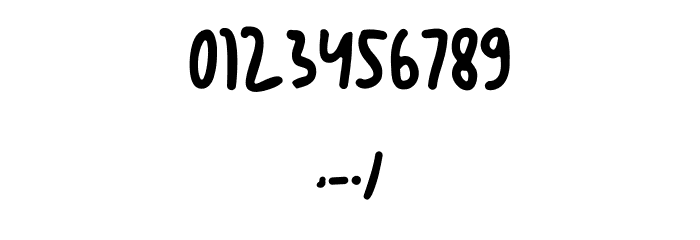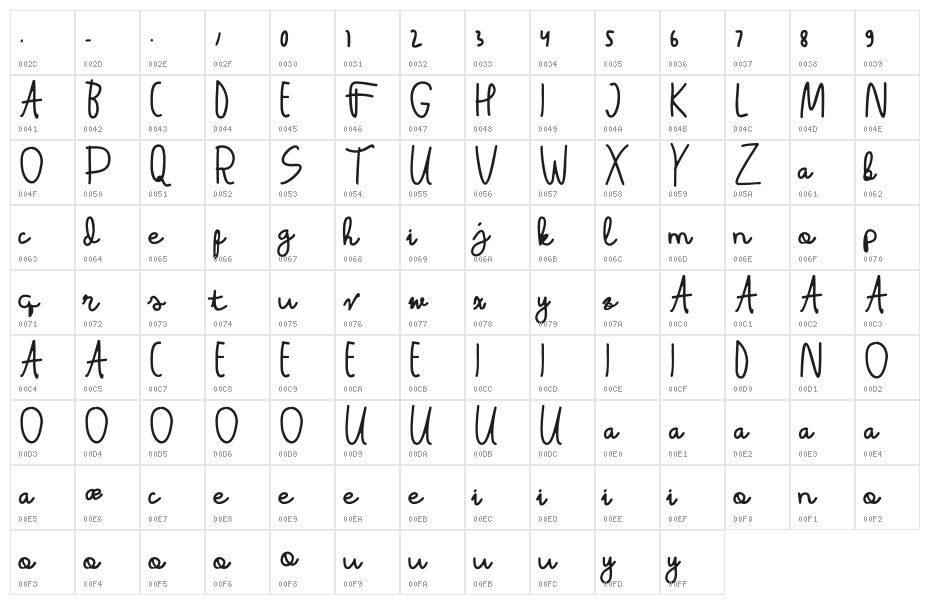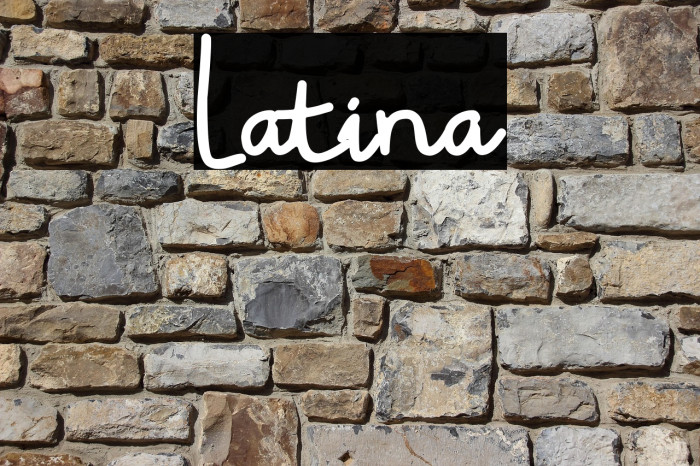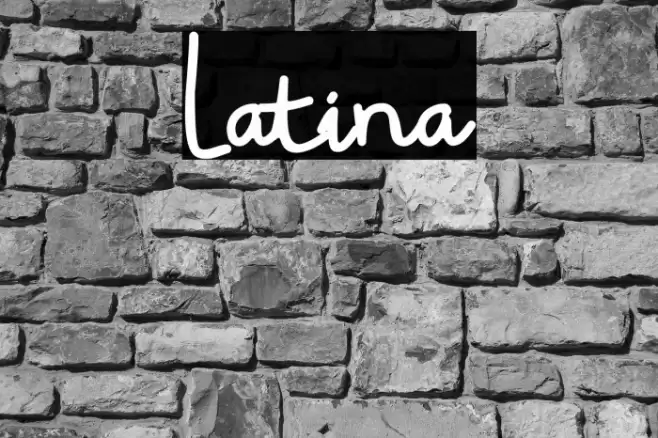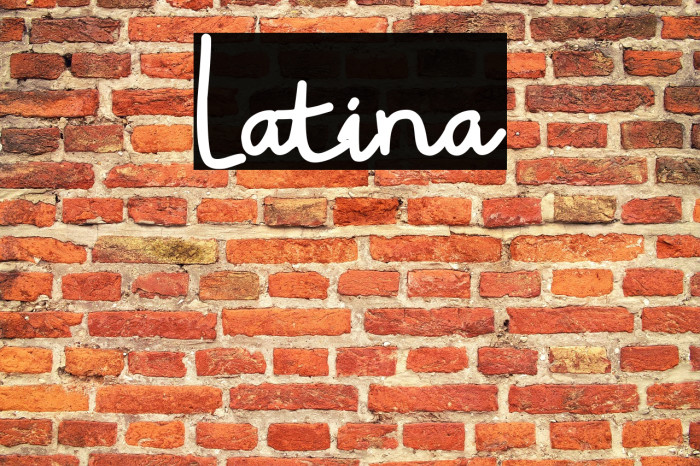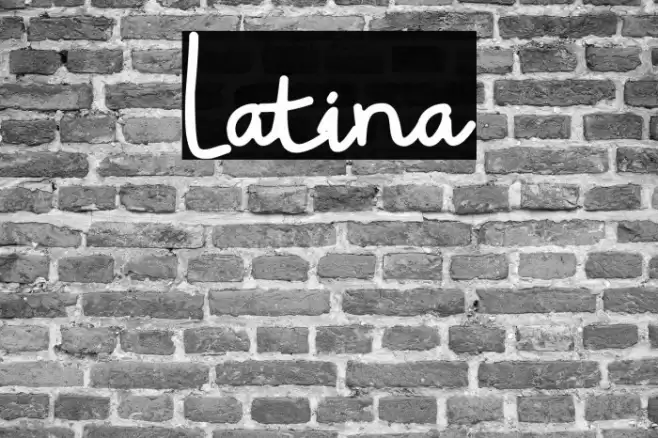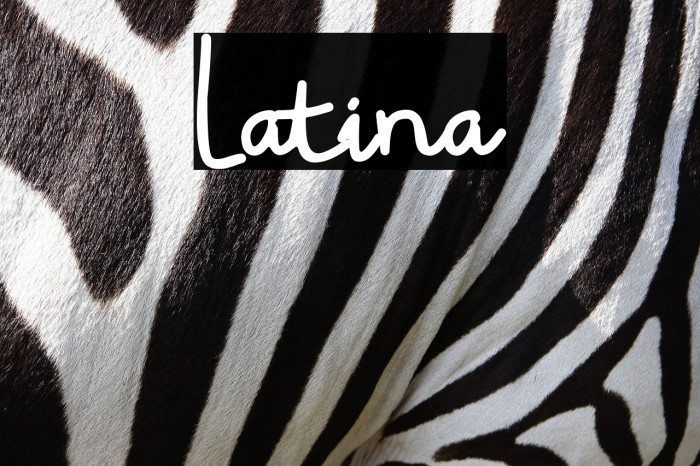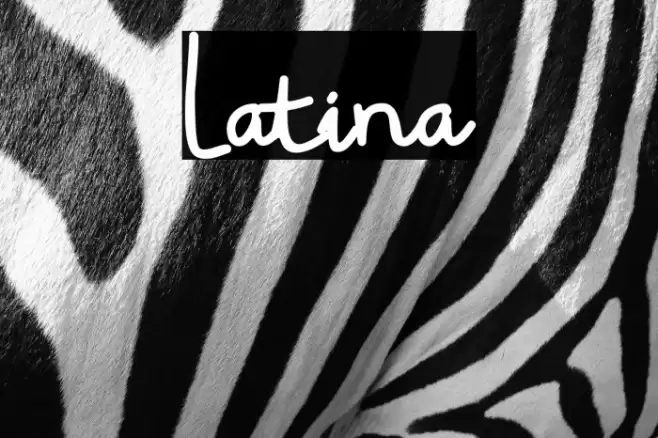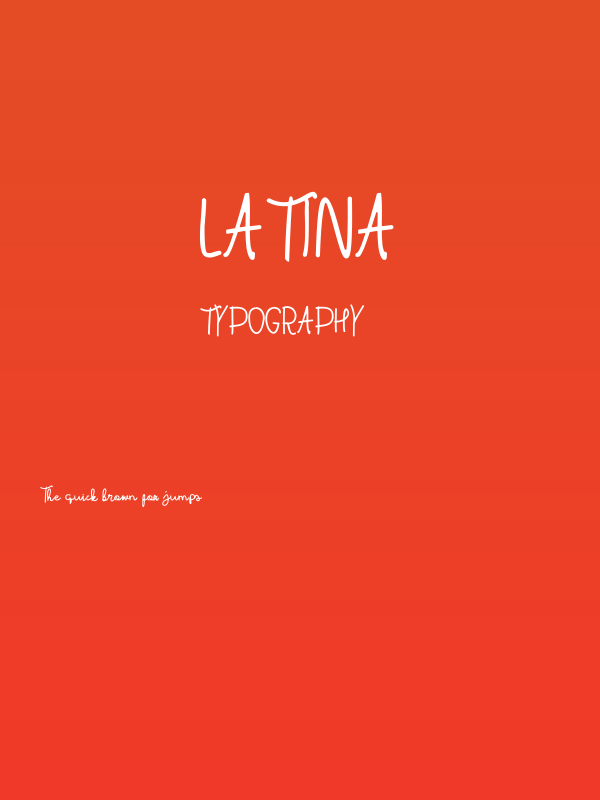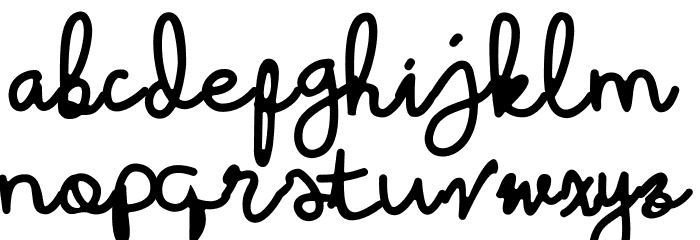
Latina Font
Latina Description
This font features a playful and casual handwritten style, characterized by its fluid and dynamic strokes. The uppercase letters are tall and narrow, with a slight slant that adds to the informal feel. The lowercase letters are more rounded and connected, resembling a natural cursive handwriting. The numbers are consistent with the overall style, maintaining the same playful and informal appearance. Special characters are integrated seamlessly, enhancing the font's versatility. The overall look is approachable and friendly, making it suitable for projects that require a personal touch.